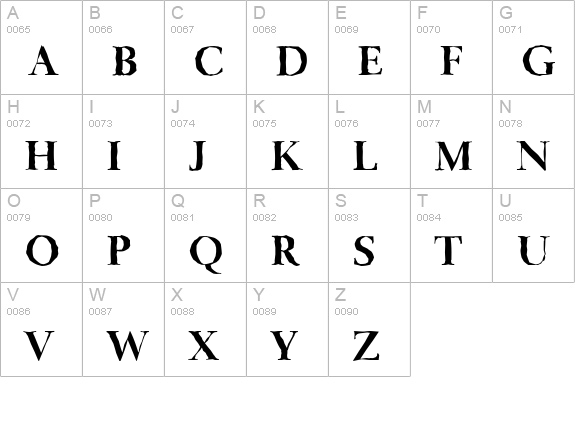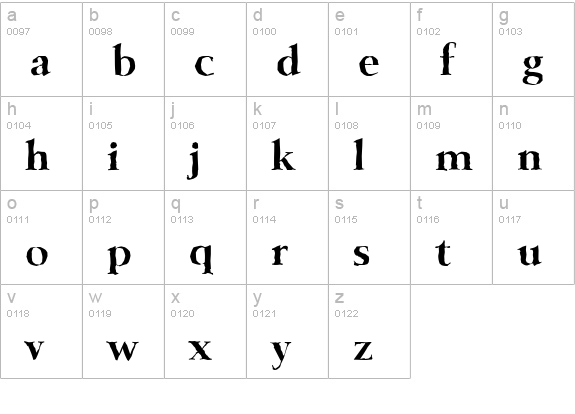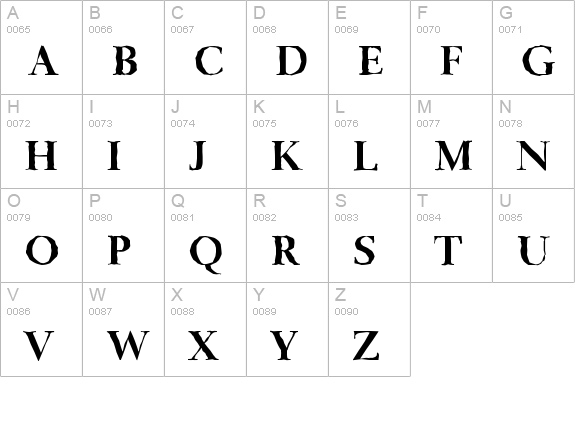
BelfastAntique-Bold Font Details
BelfastAntique-Bold is a strong, high-contrast variant in the BelfastAntique typeface family \xE2\x80\x94 well suited to headlines, attention-grabbing titles, and strong calls-to-action.
BelfastAntique-Bold is a classic and elegant serif font that exudes a timeless charm and sophistication. With its bold weight and intricate details, this typeface is perfect for adding a touch of vintage flair to your designs. The distinct serifs and graceful curves give BelfastAntique-Bold a sense of refined beauty that will elevate any project. What sets BelfastAntique-Bold apart is not only its stunning aesthetics but also its versatility. Whether you're working on a branding project, editorial design, or any other creative endeavor, this font will make a statement and leave a lasting impression. The best part? BelfastAntique-Bold is available for free download at FontsMarket.com. So go ahead and enhance your designs with this exquisite typeface without any cost. Embrace the charm of BelfastAntique-Bold and let your creativity shine with this gorgeous font.